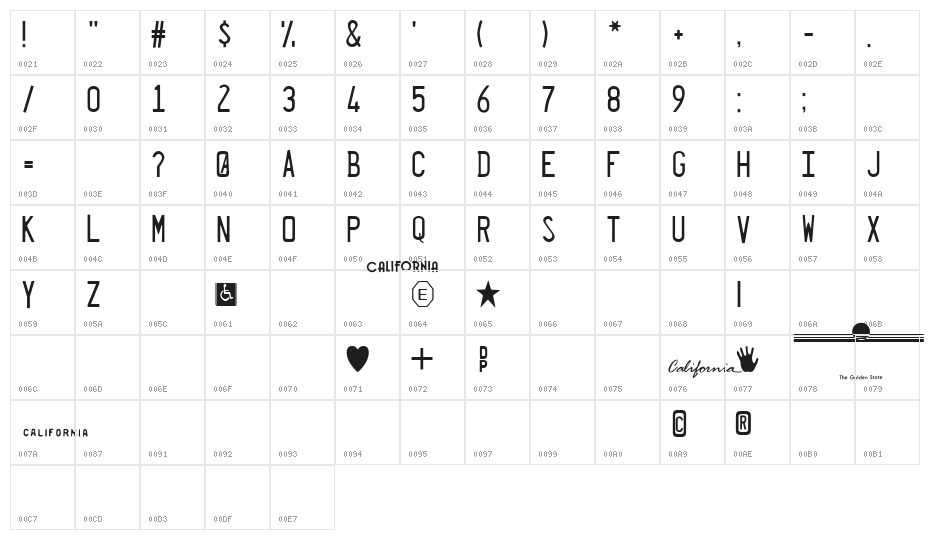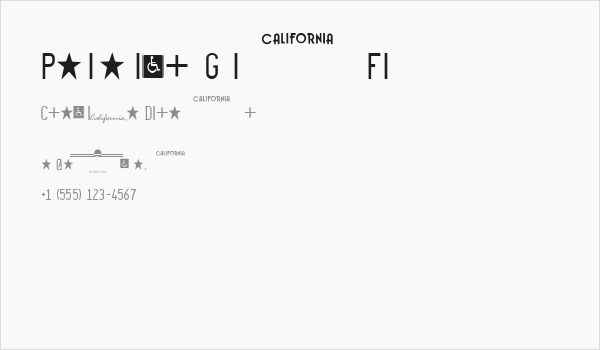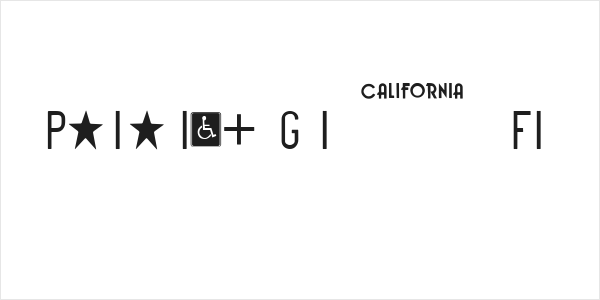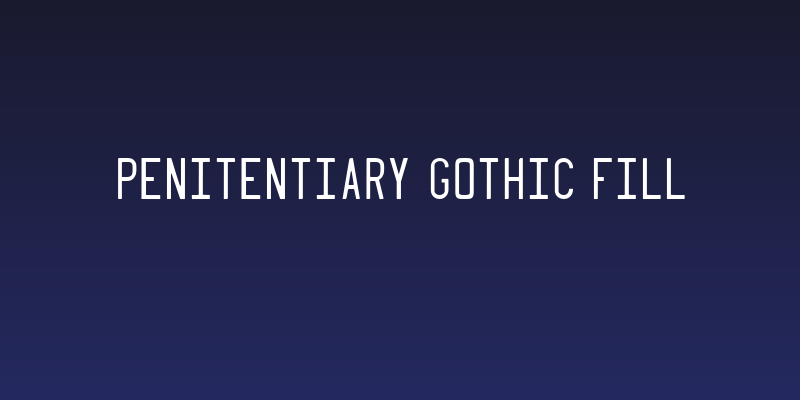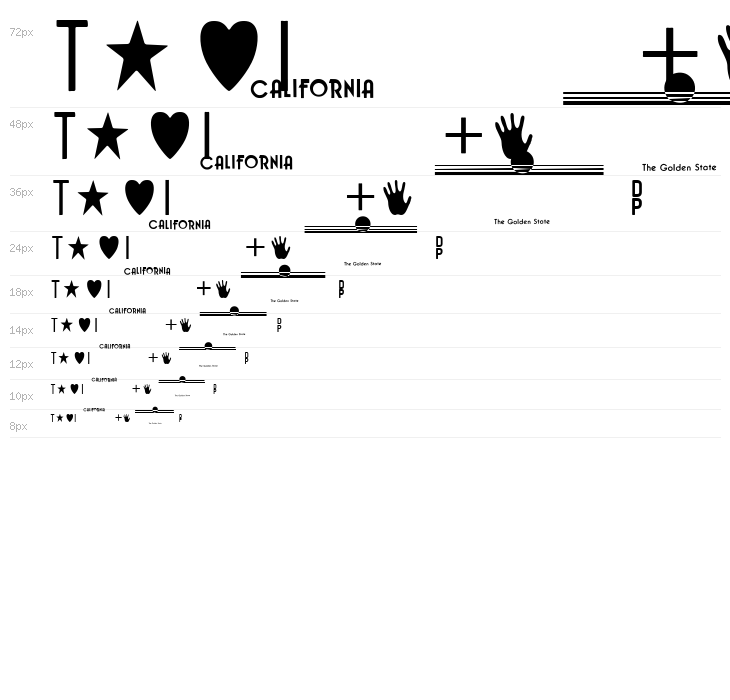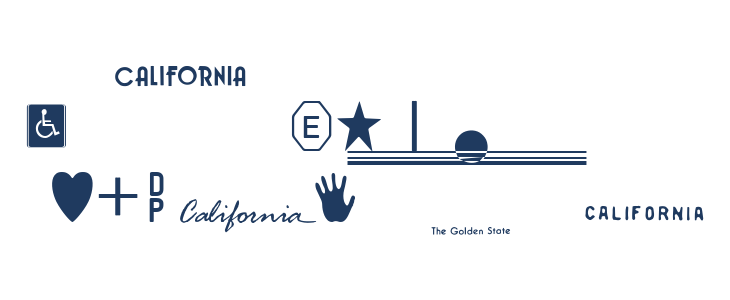
Penitentiary Gothic Fill Font
Penitentiary Gothic Fill Description
This font features a clean, modern design with a sans-serif style that emphasizes readability and simplicity. The characters are tall and narrow, giving a condensed appearance that is both sleek and efficient. The uniform stroke width across all characters provides a consistent and balanced look, making it suitable for various design applications. The font includes a full set of uppercase and lowercase letters, numerals, and a selection of special characters, ensuring versatility in use. Its geometric shapes and minimalistic approach make it ideal for contemporary design projects.
| Width | Condensed |
| Use Case | Headlines, Body text, Logos |
| Proposed Projects | Ideal for branding, signage, editorial design, and digital interfaces where clarity and modern aesthetics are key. |